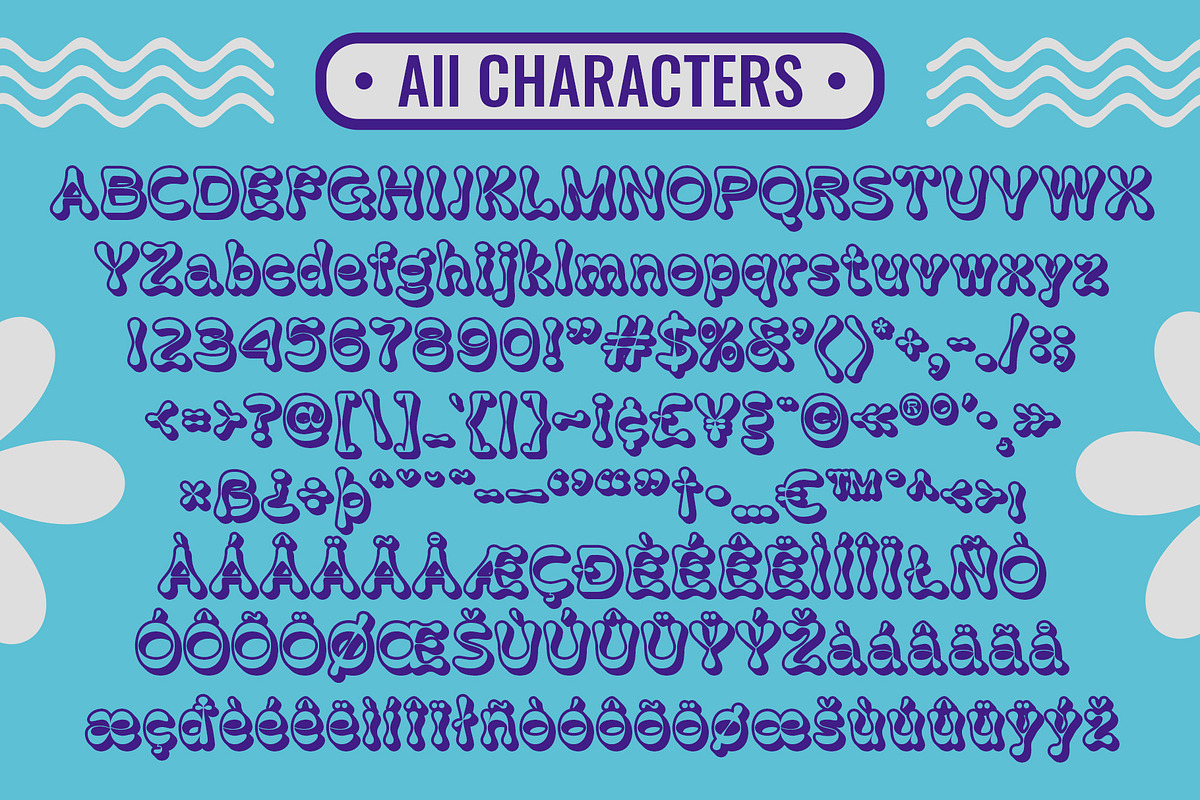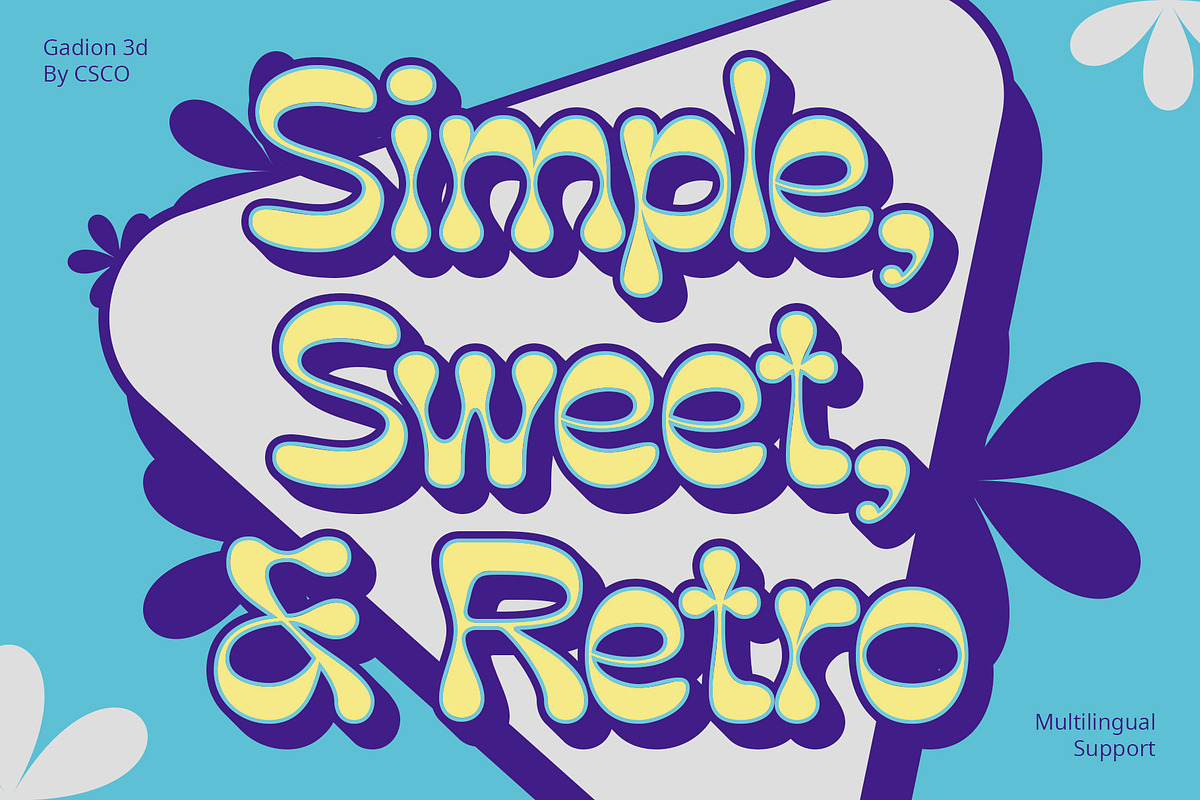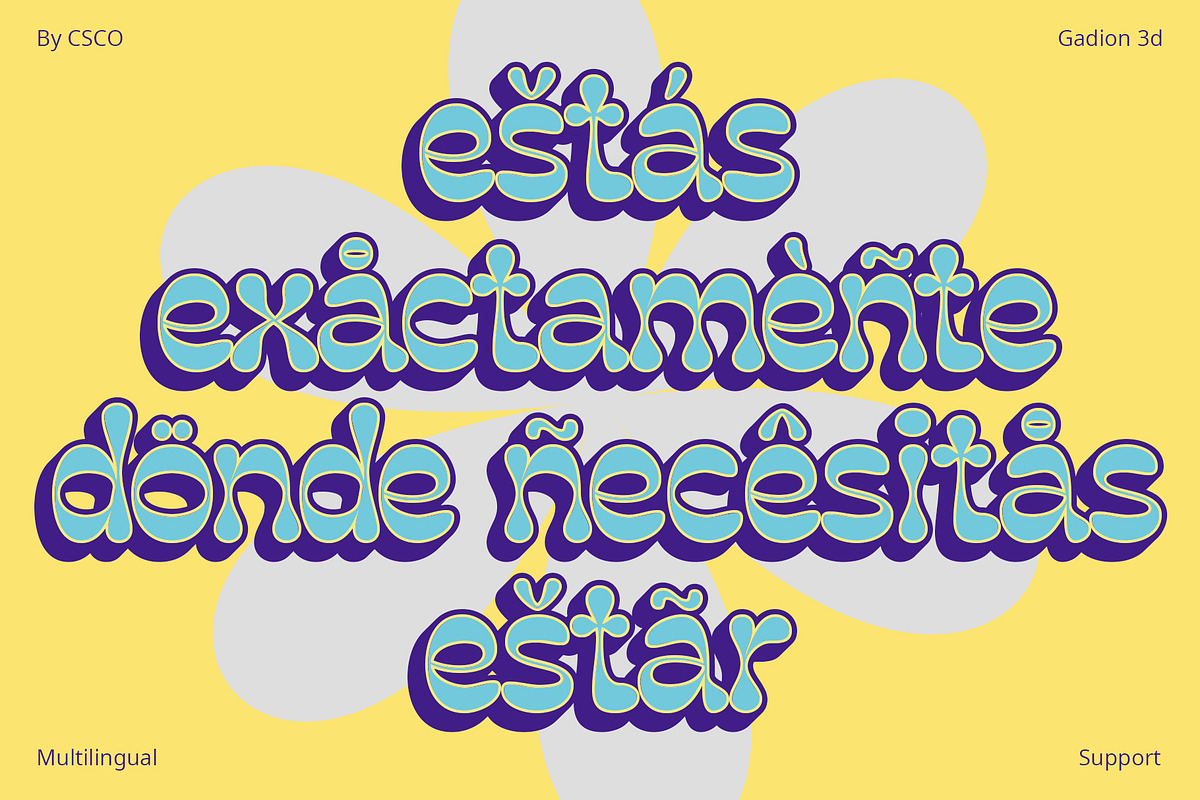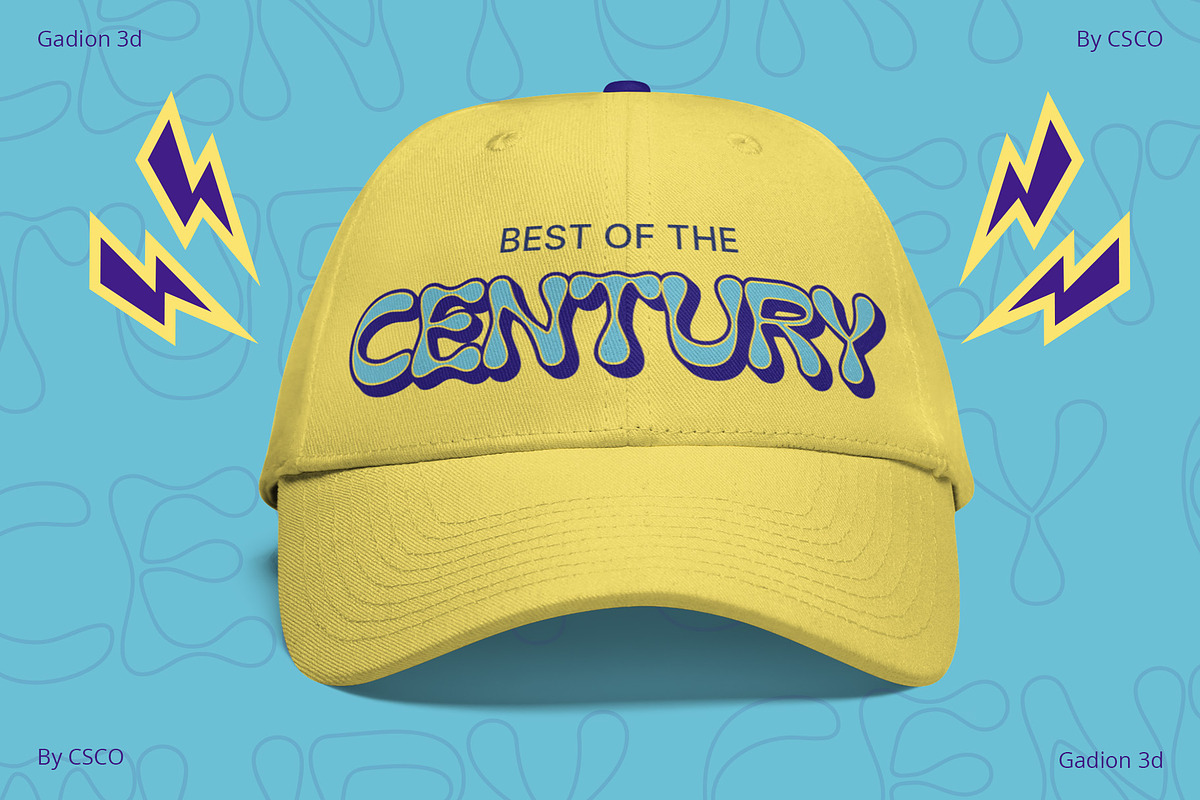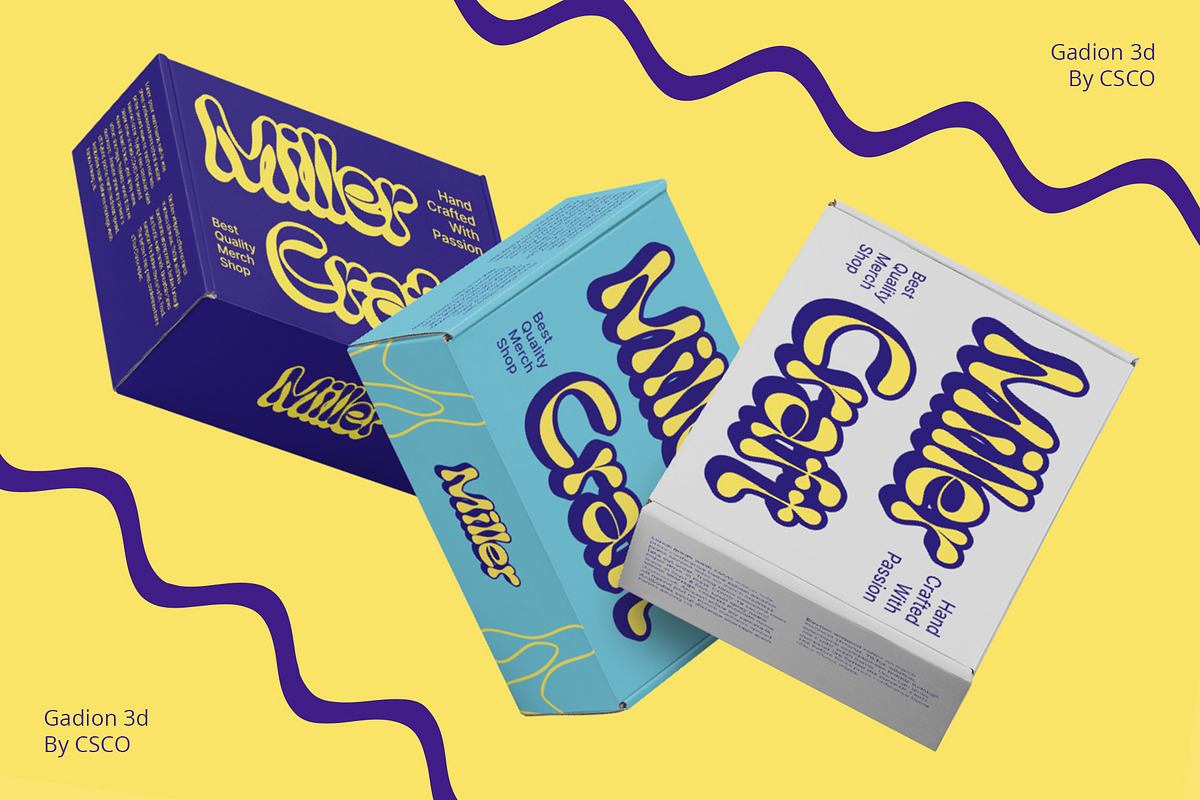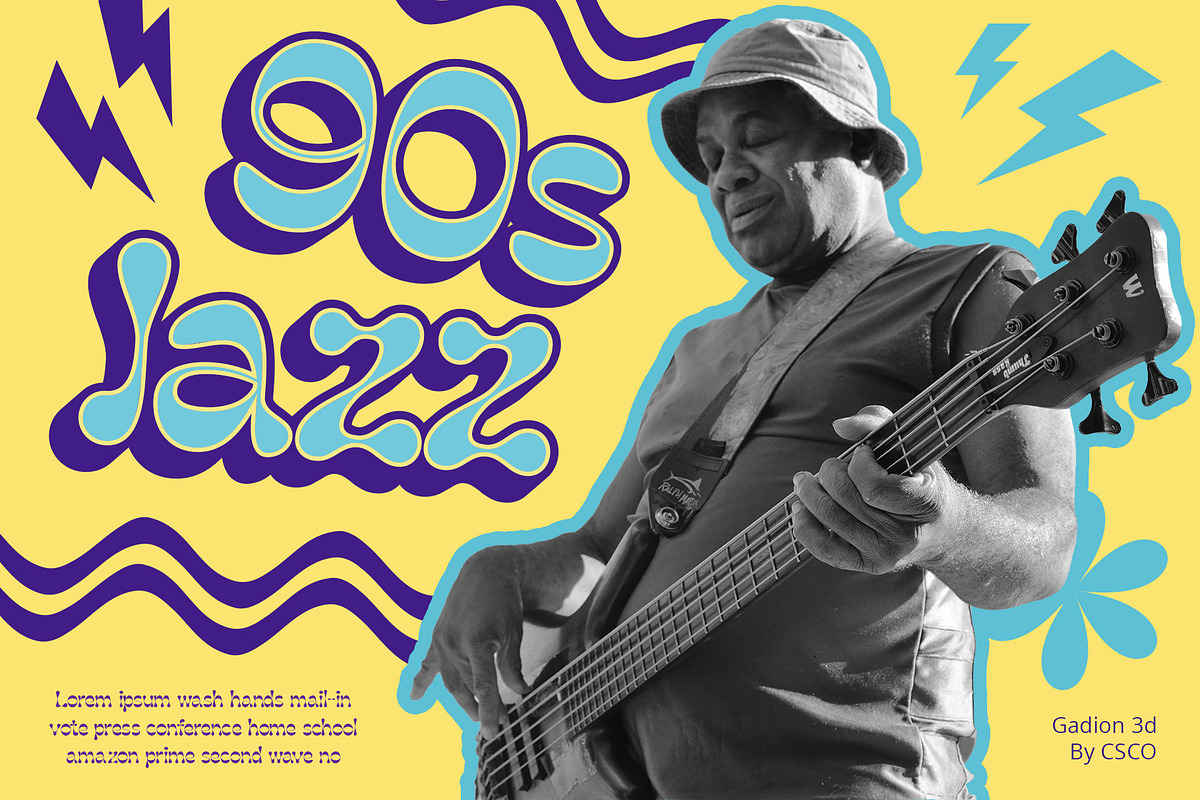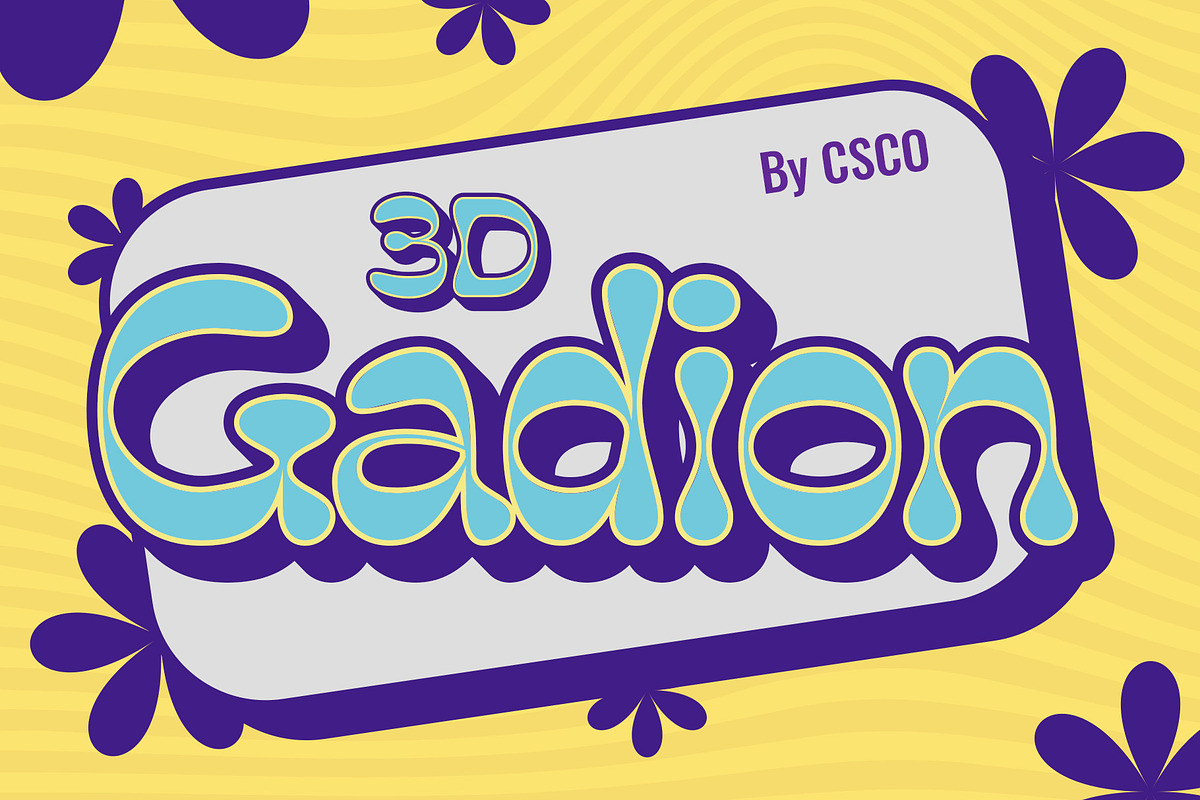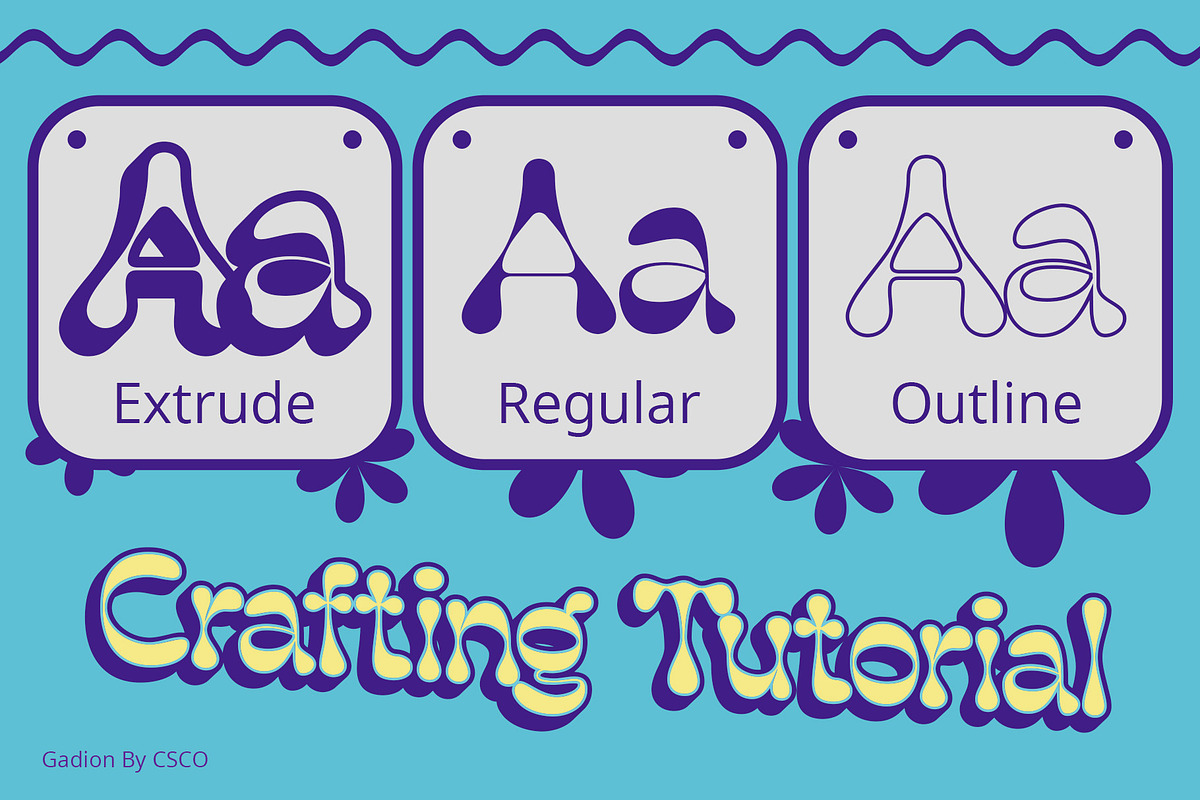
Gadion 3D
Gadion 3D Font: Where Bubbles Meet Clouds
Whimsical Inspiration Gadion 3D, a playful display font, draws inspiration from the ethereal beauty of bubbles and the soft contours of clouds.
A Dimensional Delight Crafted with precision, this font comes to life with a 3D effect, achieved through meticulous extrude and outline techniques.
Bubble-licious Charm Gadion 3D exudes a delightful charm, reminiscent of bubbles floating in the air. Each character captures the lightness and joy of these floating spheres.
Cloud-Like Elegance The font’s design, inspired by clouds, adds an element of sophistication. The gentle curves and soft edges contribute to an overall sense of elegance.
Conclusion Gadion 3D is more than just letters on a screen; it’s a whimsical journey where bubbles meet clouds, creating a font that is both playful and elegant. Bring a touch of enchantment to your designs with Gadion 3D.